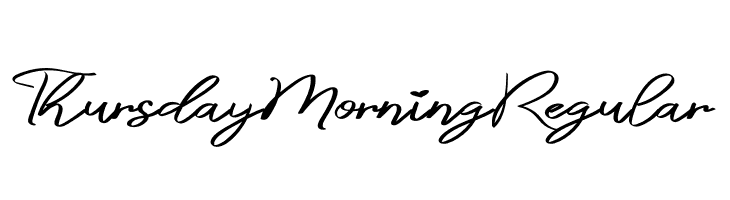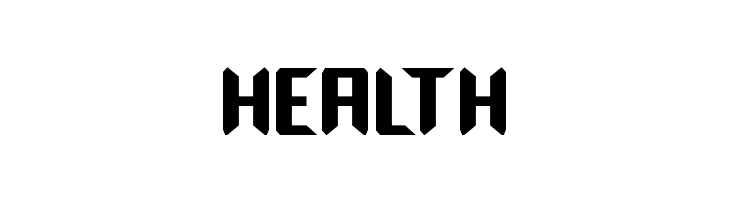
A flowing, cursive font with elegant loops and swashes.
A bold, dramatic serif font with artistic flair and exaggerated curves.
A modern, medium-weight italic sans-serif typeface with a sleek and dynamic appearance.
A dynamic and elegant script font with flowing, cursive letters and decorative flourishes.
A bold, italic font with a halftone effect, offering a modern and dynamic style.
A bold, angular font with high contrast and geometric design.
A bold, italicized retro font with high contrast and a vintage aesthetic.
A clean, monospaced font with a minimalist and modern design.
A playful, handwritten font with irregular, organic strokes.
A bold, modern font with geometric shapes and a futuristic style.